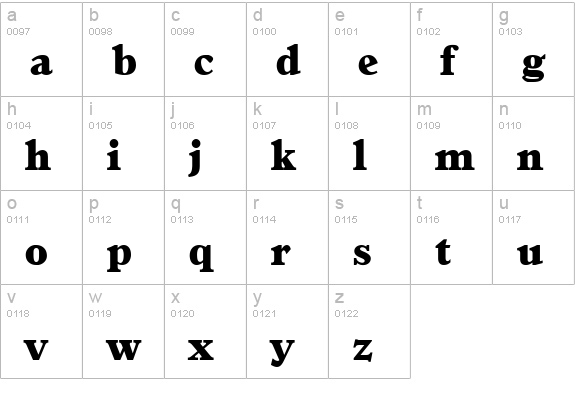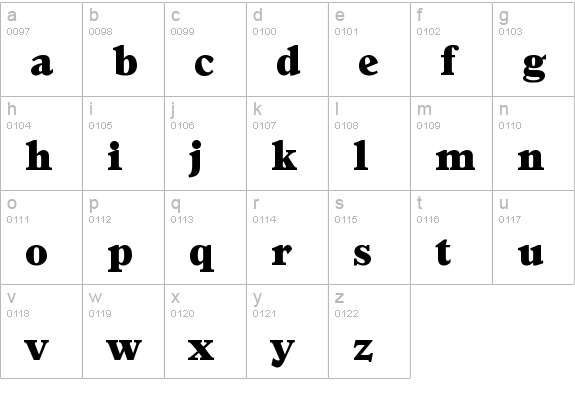
Agonic Display SSi Font Details
Agonic Display SSi font is a modern and stylish typeface that exudes elegance and sophistication. With its sleek lines and geometric shapes, this font is perfect for creating eye-catching headlines, posters, and branding materials. The clean and contemporary design of Agonic Display SSi font makes it versatile and suitable for a wide range of design projects. What sets Agonic Display SSi font apart is its unique blend of classic and modern elements, making it a timeless choice for designers looking to make a statement. Whether you're working on a logo, packaging design, or website layout, Agonic Display SSi font will add a touch of sophistication to your work. The best part about Agonic Display SSi font is that it is available for free download at FontsMarket.com. This means you can start using this stunning font in your projects right away, without having to worry about any additional costs. Don't miss out on this opportunity to elevate your designs with the elegant and versatile Agonic Display SSi font.